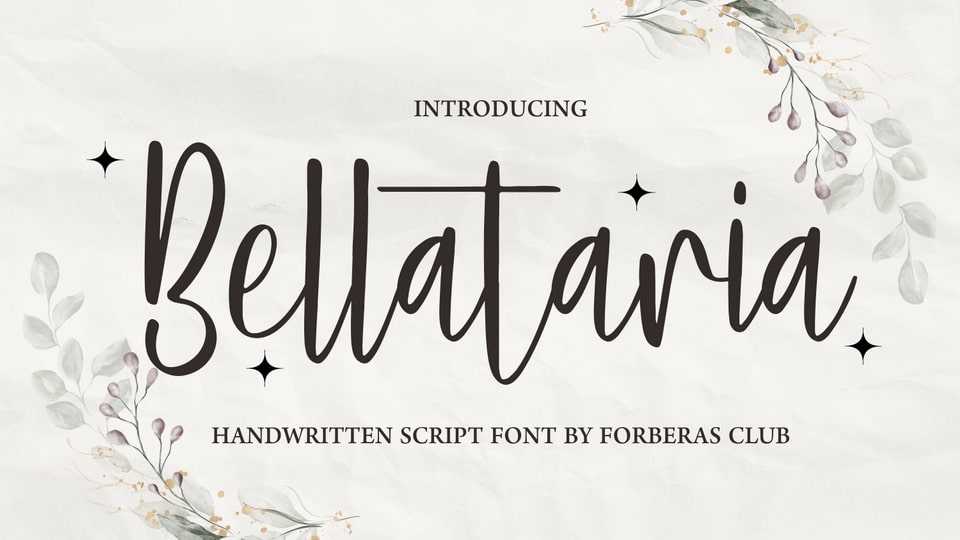
Download Bellataria font, a flowing script font inspired by modern and dynamic handwriting. Bellataria is perfect for creating modern and chic designs such as logos, packaging, editorials and more.